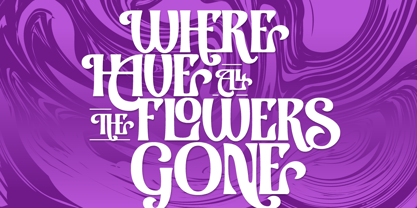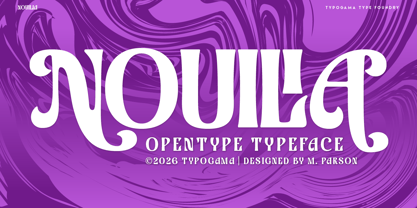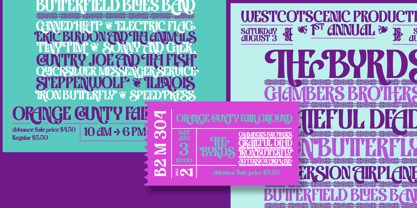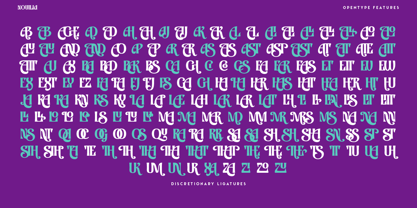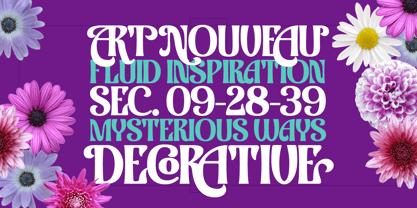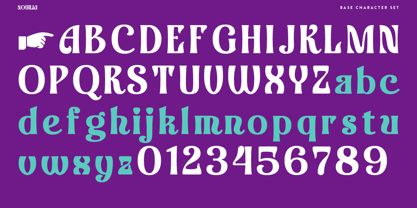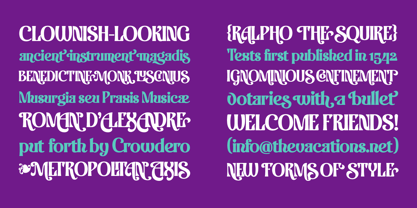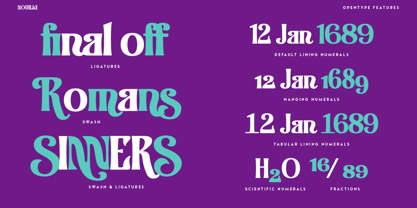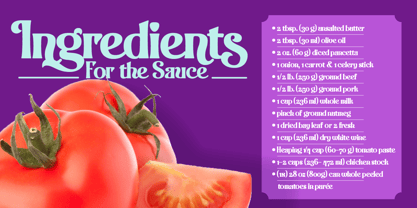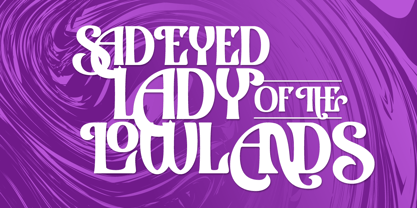
Nouilia
The Nouilia Font Family was designed by Michael Parson and published by Typogama. Nouilia contains 1 styles. More about this family
Nouilia is a single-weight display typeface inspired by a blend of calligraphy and linear strokes. With a unique style, the font includes a wide range of OpenType features, from ligatures, swashes, fractions, and various forms of numerals, offering a wide choice of layout solutions. It includes an extended Latin character set that covers over two hundred Latin-based languages and also includes a selection of arrows and typographic symbols.